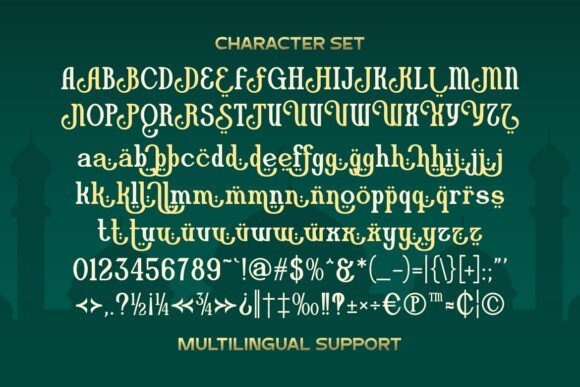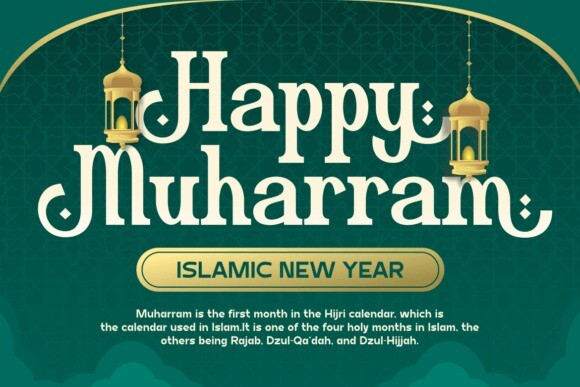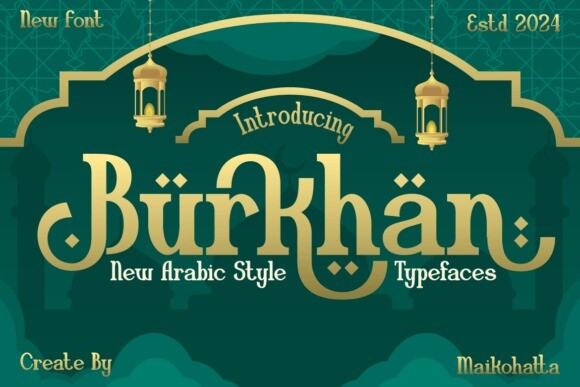
Burkhan Font
Burkhan Font is a stylish Arabic-style typeface. Its elegant design adds flair to your text, making it perfect for various projects. Whether you’re creating posters, logos, or invitations, Burkhan brings a touch of sophistication with its unique Arabic-inspired characters.